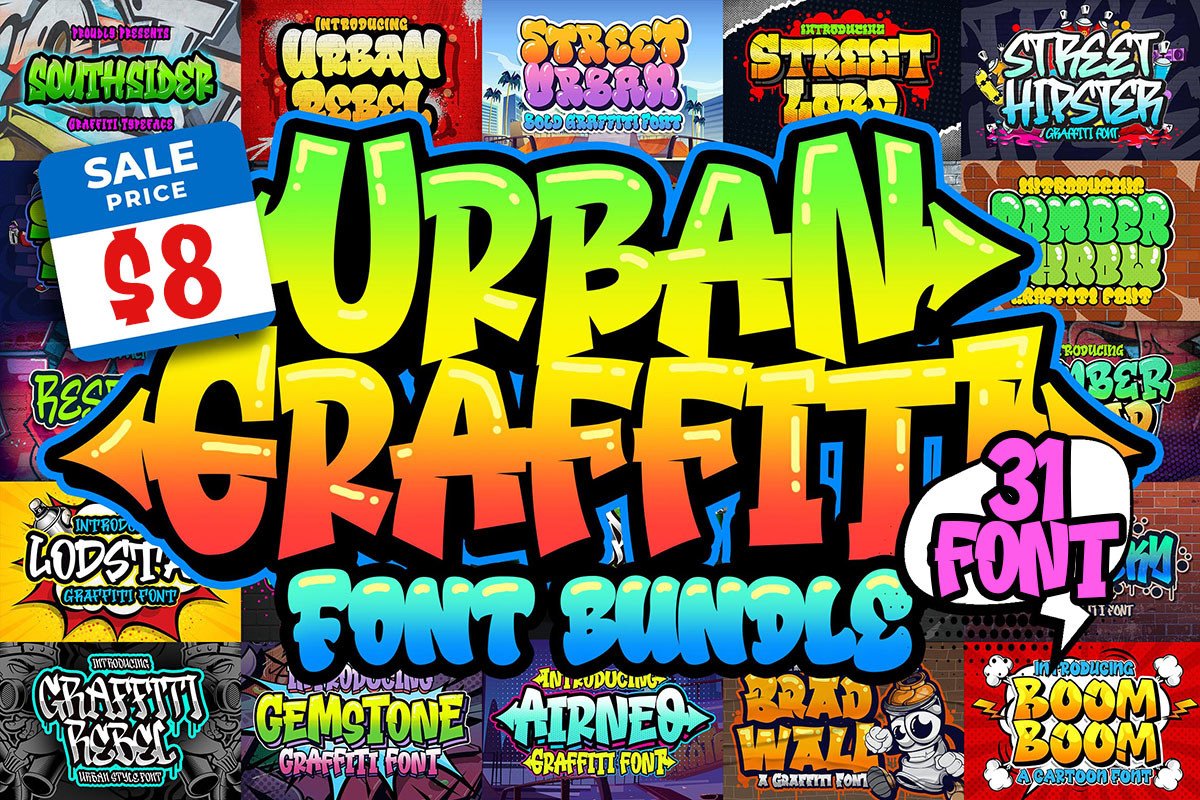
Download Urban Graffiti Font Bundle gathers 31 eye catching graffiti-style fonts for you to use in your upcoming projects. With these unique fonts, you will certainly make your designs stand out!